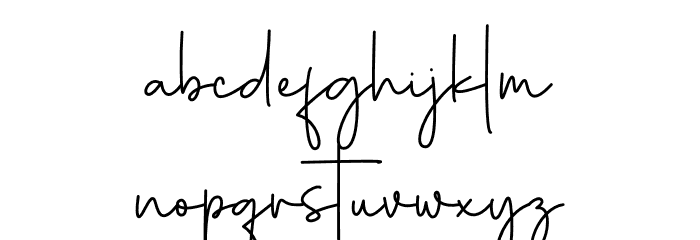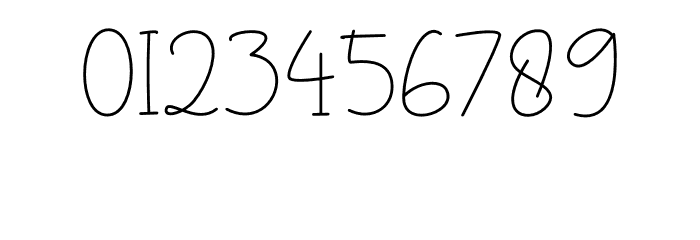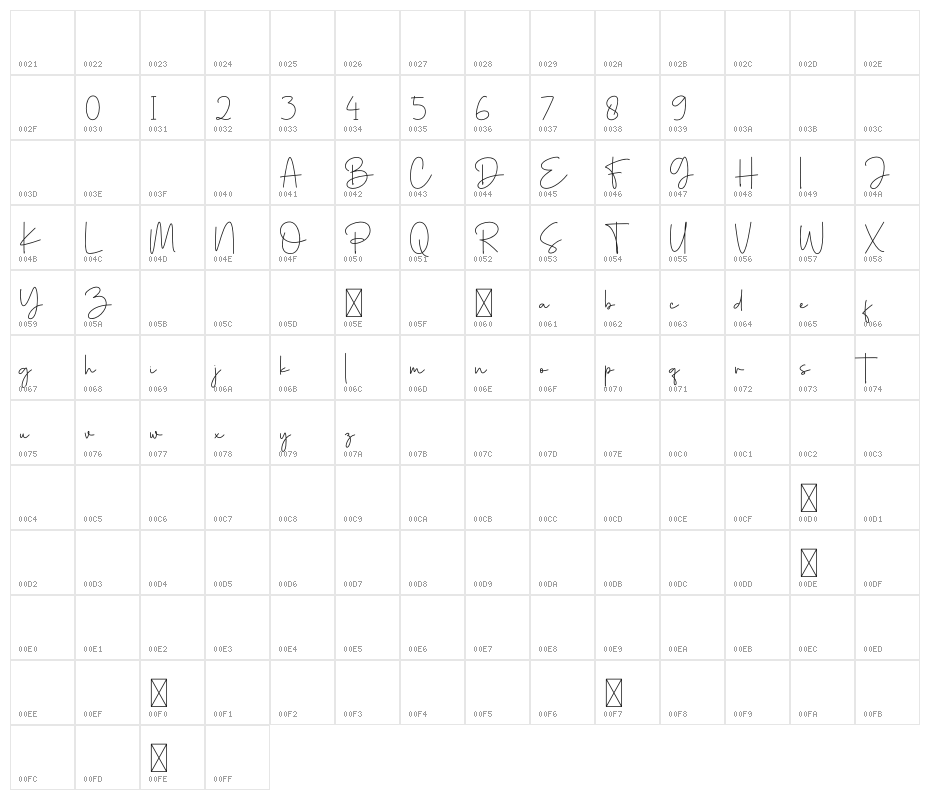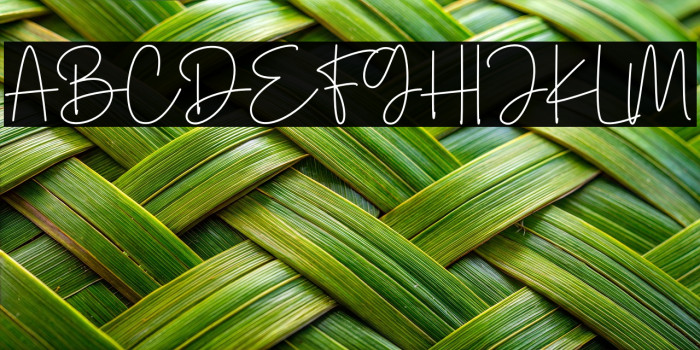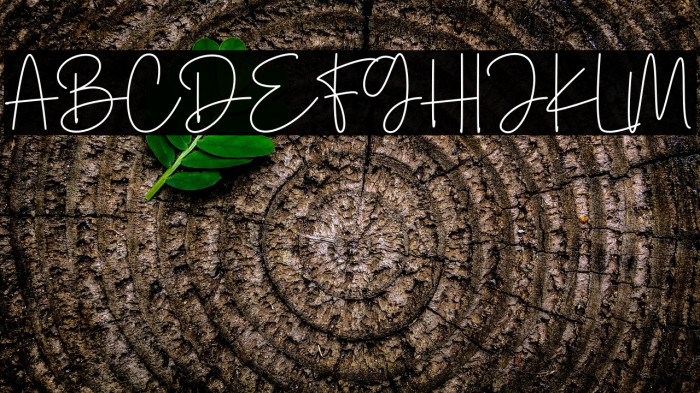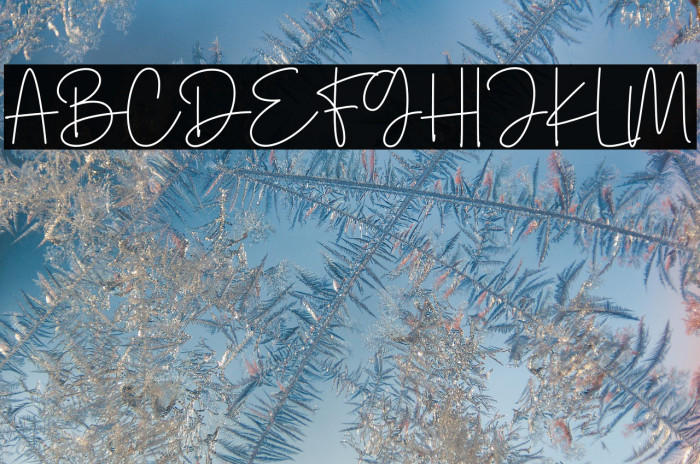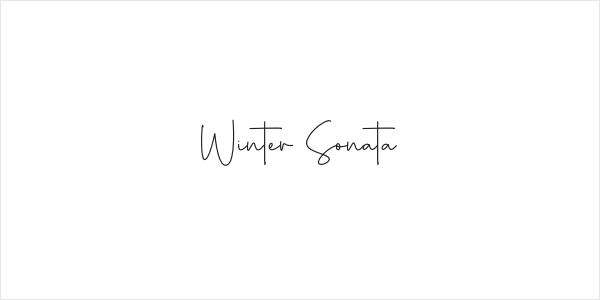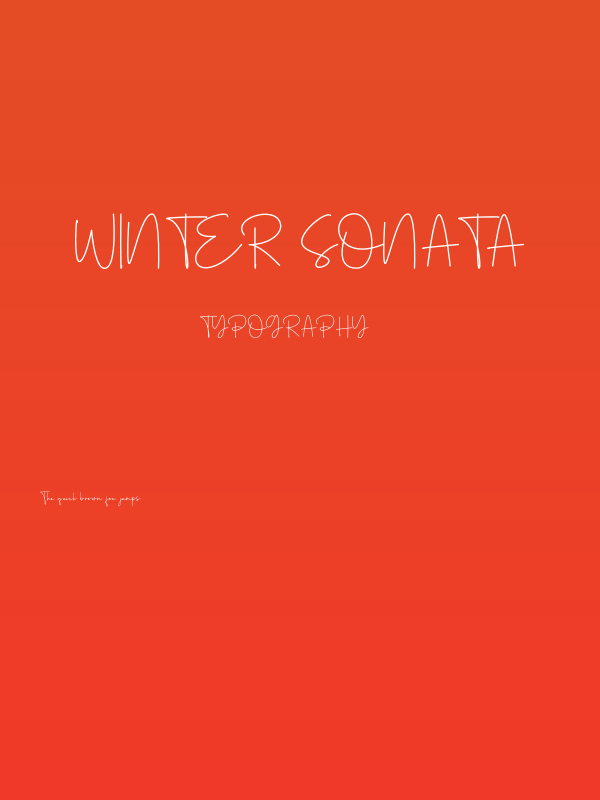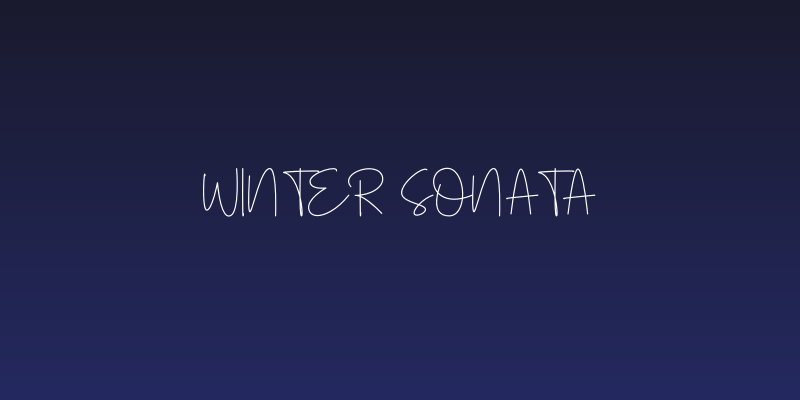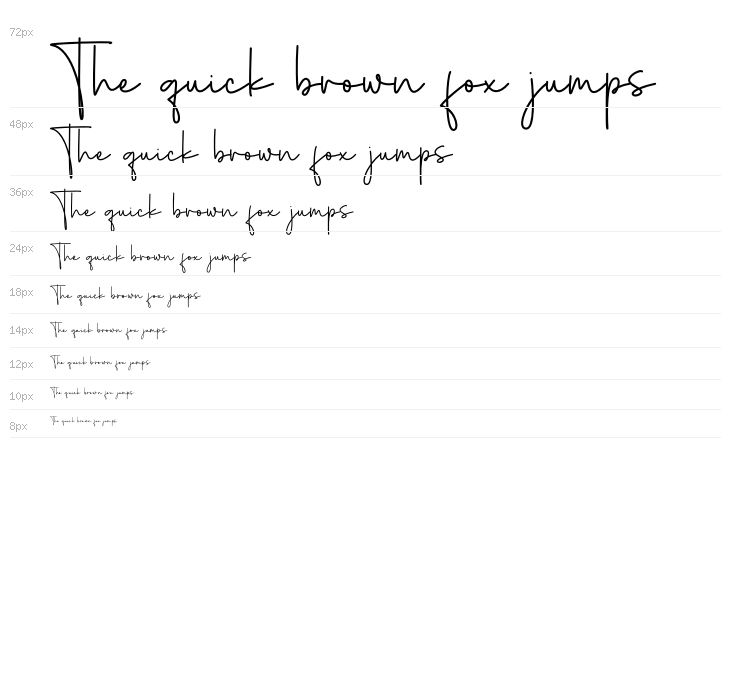
Winter Sonata Font
This font exudes a delicate and elegant style, characterized by its thin, flowing lines that mimic the fluidity of handwritten script. The uppercase letters are tall and slender, with a slight slant that adds a touch of sophistication. The lowercase letters maintain a consistent flow, enhancing the handwritten feel. The numerals are clear and legible, maintaining the same thin stroke weight as the letters. Special characters are seamlessly integrated, maintaining the overall aesthetic. This font's airy and graceful appearance makes it ideal for projects that require a personal touch.
A delicate, handwritten-style font with thin, flowing lines.
- Font: Winter Sonata
- Proposed Projects: Ideal for wedding invitations, personal branding, elegant stationery, and greeting cards.
- Category: Handwritten
- Weight: Light
- Overall Style: Elegant, Handwritten
- Use Case: Logos, Invitations, Personal Branding